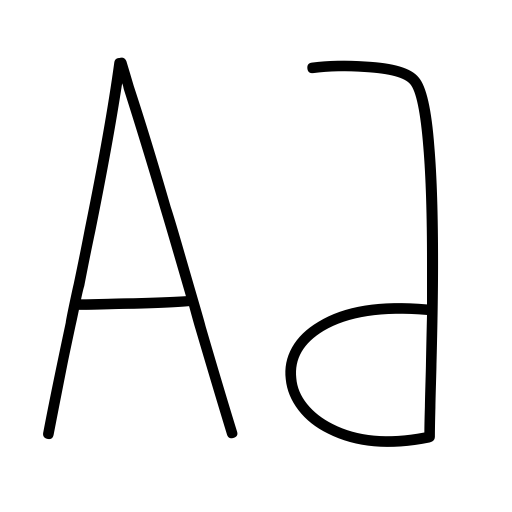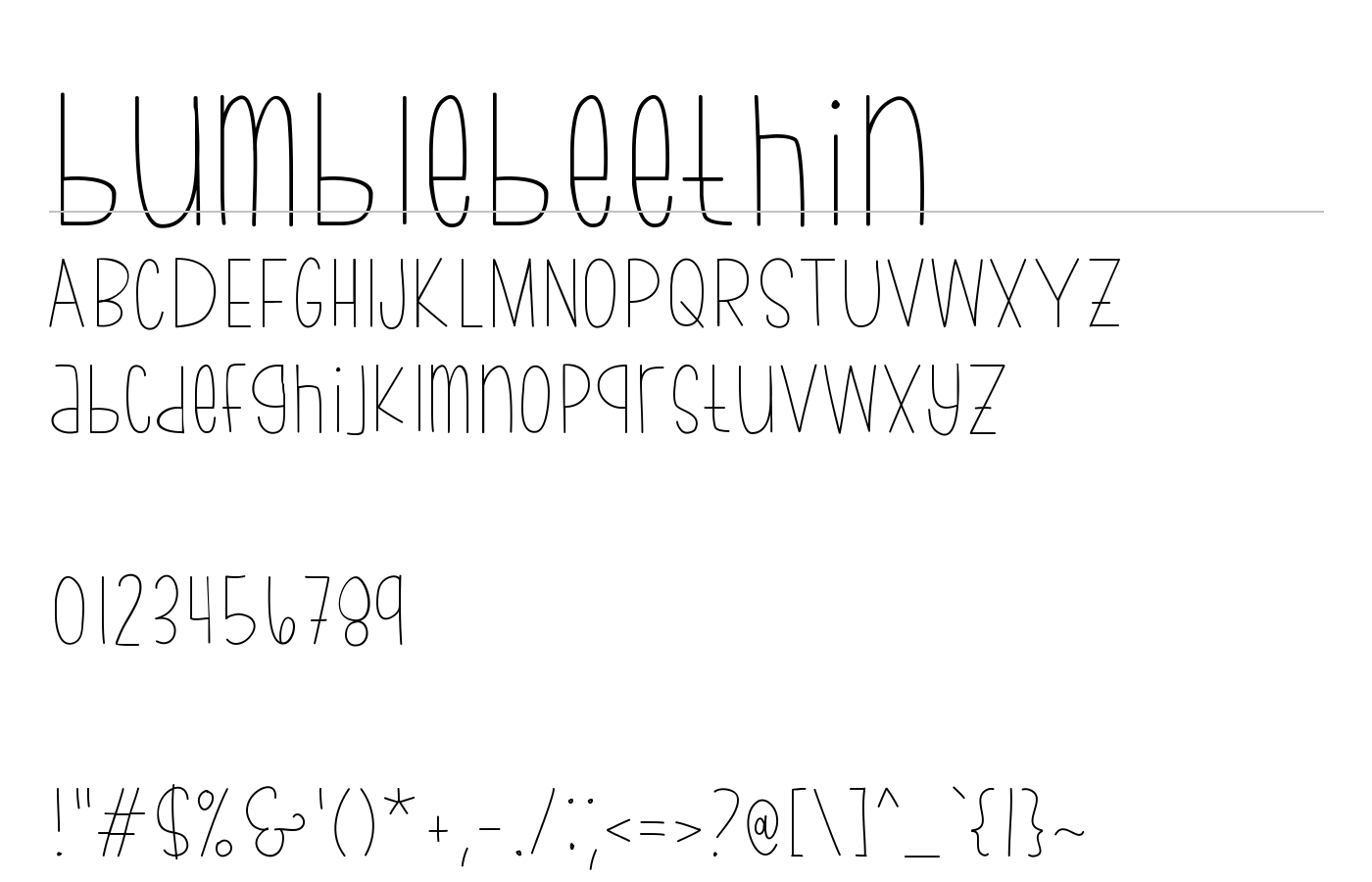
Bumblebeethin is a whimsical, ultra-lightweight sans serif font with a tall, narrow structure and delicate strokes that give it a playful yet elegant feel. Its quirky letterforms and consistent thin lines make it ideal for creative designs needing a unique, hand-drawn charm, especially in headlines, logos, or decorative text where a light, airy personality is desired. This font works well in projects that embrace a casual, artistic vibe without sacrificing readability.
bumblebeethin Font